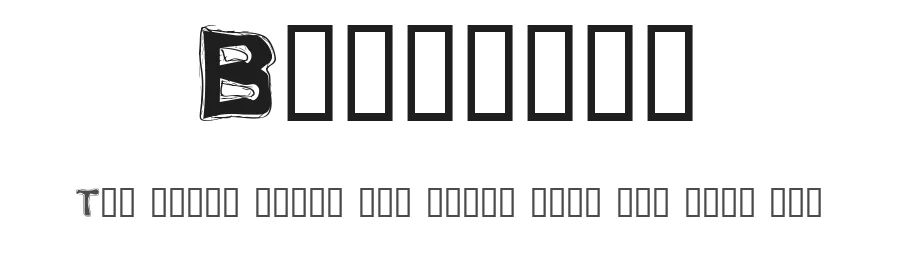
About Broken Chalk Font
Broken Chalk is a decorative font designed by Magistr. It includes 91 glyphs, a regular weight, and TTF (TrueType) format. Broken Chalk is free to download; check the license details on this page before commercial use. Decorative fonts like Broken Chalk work best for logos, posters, packaging, and standout headlines.
| Designer | Artem Shalakhin |
Broken Chalk Font is a decorative font that shines as a display or heading face. Pair it with a clean sans-serif or serif font for body text β the contrast creates a clear hierarchy while the two styles stay balanced and easy to read.
Broken Chalk Font
by Magistr